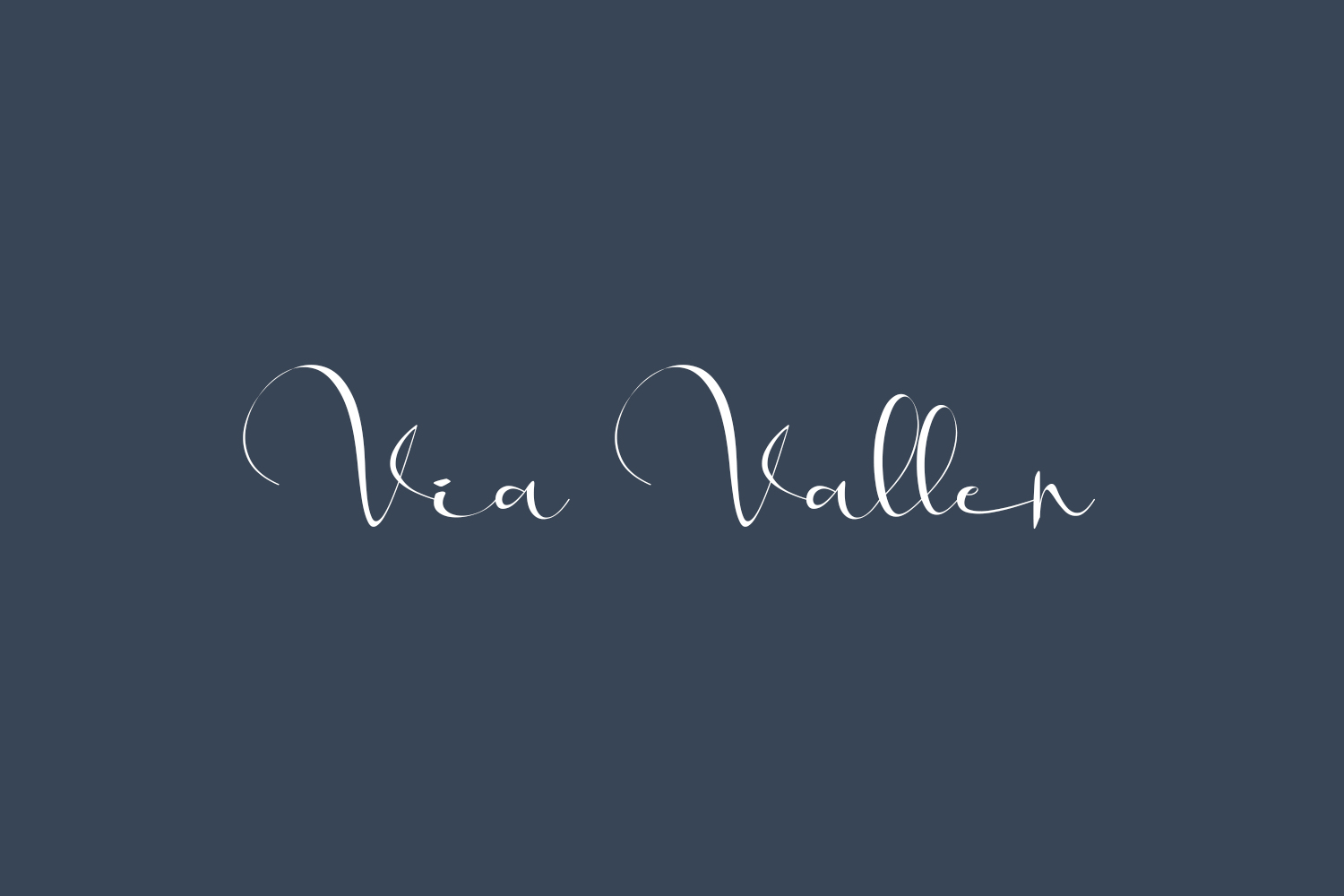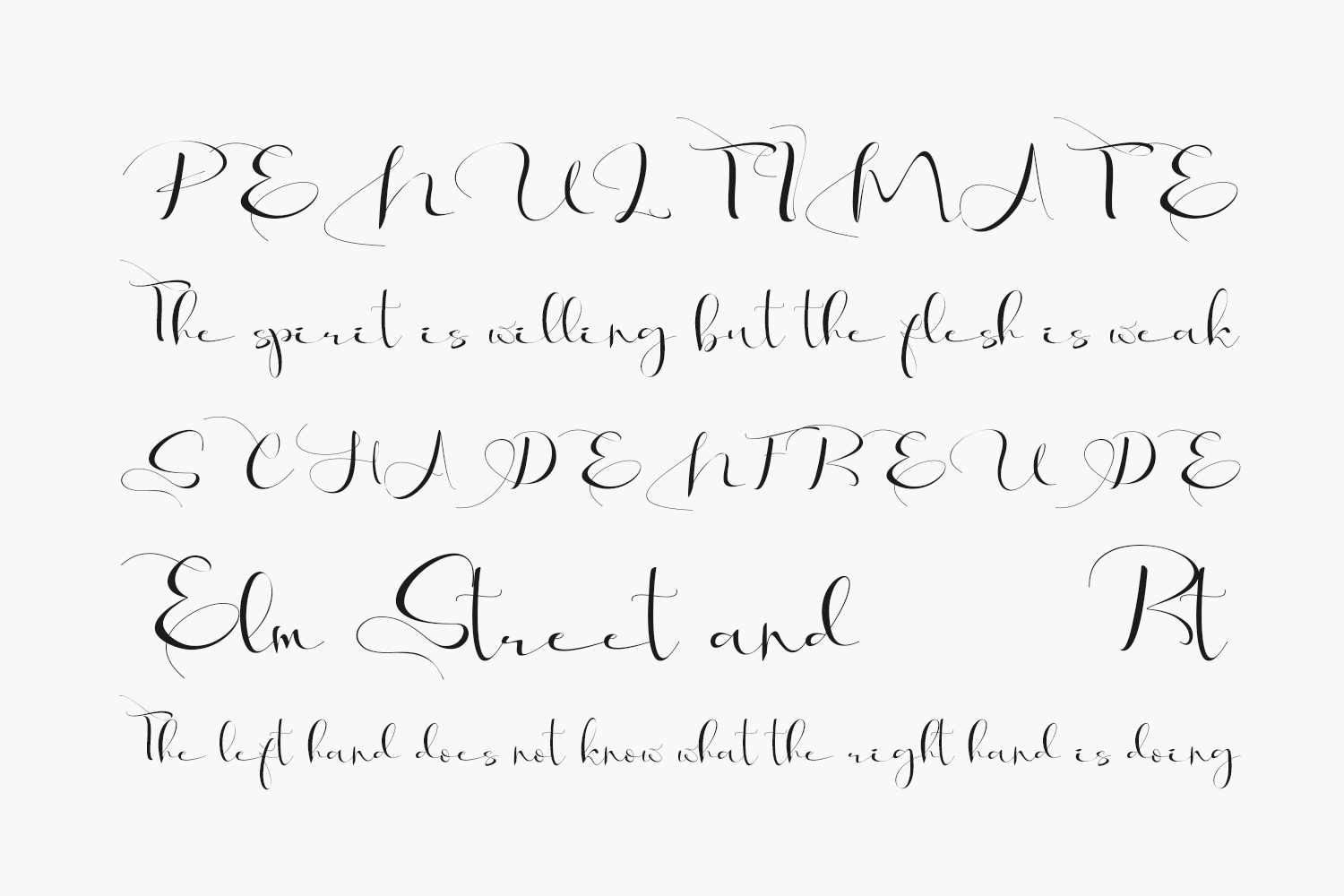
Via Vallen Font Free Font is an elegant and stylish calligraphy font, carefully handcrafted to become a true favorite. It can be used for various purposes such as logos, wedding invitations, headings, t-shirts, letterhead, signage, labels, news, posters, badges and so much more. Via Vallen Font Free Font was designed by Aldedesign and is free for personal use only. Please purchase the full version for commercial use.